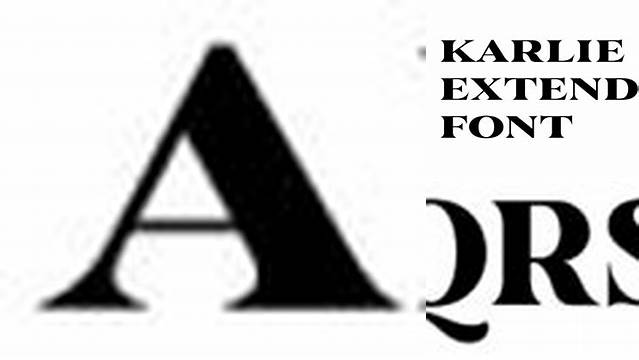
Introduction to Karlie Serif Semi Extended Font
Guys, let's dive into the world of typography! When it comes to making your designs pop, the font you choose plays a crucial role. Today, we're going to explore the Karlie Serif Semi Extended Font, a typeface that blends elegance with a touch of modernity. This font is perfect for those who want to add a sophisticated yet contemporary feel to their projects. Whether you're working on branding, editorial design, or even web layouts, Karlie Serif can be a fantastic choice. Its semi-extended structure gives it a unique presence, making it stand out from more traditional serif fonts. Think of it as the stylish cousin of classic serifs – refined but with its own personality. The subtle curves and balanced letterforms make it highly readable, ensuring your message comes across clearly and beautifully. So, if you're on the hunt for a font that’s both versatile and visually appealing, Karlie Serif might just be the answer. We’ll explore its characteristics, ideal use cases, and, most importantly, where you can snag it for free. Let's get started and see how this font can elevate your design game!
The Karlie Serif Semi Extended Font is characterized by its distinctive features that make it a versatile choice for various design projects. Its semi-extended letterforms provide a unique and modern aesthetic, setting it apart from traditional serif fonts. The font’s elegant curves and balanced letterforms ensure high readability, making it suitable for both body text and headlines. Karlie Serif exudes sophistication, making it an excellent option for projects aiming for a refined and contemporary feel. Its versatility allows it to be used in branding, editorial design, web layouts, and more. The font's unique structure adds character to any design, making it stand out while maintaining a professional appearance. Designers often choose Karlie Serif for its ability to convey both elegance and modernity, making it a go-to option for projects that require a touch of class and contemporary flair. Its balanced design ensures that it remains legible across various sizes and mediums, further enhancing its usability. Understanding these key characteristics helps in leveraging Karlie Serif effectively to achieve the desired design impact. Next, we will delve into the specific applications where Karlie Serif truly shines, providing practical examples and inspiration for your projects.
The aesthetic appeal of Karlie Serif lies in its ability to blend traditional serif characteristics with a modern, extended form. This fusion creates a visually striking typeface that is both elegant and contemporary. The extended letterforms give the font a unique presence, making it stand out without sacrificing readability. The subtle serifs add a touch of classic sophistication, while the overall structure feels fresh and modern. Karlie Serif’s design is carefully balanced, ensuring that each letterform complements the others, resulting in a harmonious and visually pleasing text. This balance makes it a versatile choice for various design applications, from branding to editorial layouts. The font’s aesthetic also includes a sense of openness and airiness, which contributes to its readability and visual appeal. Designers appreciate Karlie Serif for its ability to convey a sense of luxury and modernity, making it ideal for projects that require a sophisticated touch. The clean lines and refined curves make it a timeless choice, ensuring that it remains stylish and relevant for years to come. Karlie Serif’s aesthetic appeal is not just about its visual attributes; it’s also about the feeling it evokes – a sense of elegance, modernity, and trustworthiness. This makes it a powerful tool for communicating a brand’s message effectively and beautifully.
Ideal Use Cases for Karlie Serif
So, where does Karlie Serif really shine? Let's explore some ideal use cases, guys! This font is incredibly versatile, making it a fantastic choice for a wide range of projects. First up, branding. If you're looking to create a logo or brand identity that exudes sophistication and modernity, Karlie Serif can be your best friend. Its elegant letterforms and unique semi-extended structure give it a distinct personality that can help your brand stand out. Think of high-end fashion brands, luxury boutiques, or even tech companies aiming for a sleek, contemporary look – Karlie Serif fits right in. Next, let's talk about editorial design. Magazines, books, and online articles can all benefit from the readability and visual appeal of this font. Whether you're crafting headlines, subheadings, or body text, Karlie Serif ensures a smooth reading experience. Its balanced design and clear letterforms make it easy on the eyes, even for long-form content. Plus, its elegant aesthetic adds a touch of class to any publication. Moving on to web design, Karlie Serif can elevate your website's typography game. Using it for headings and key text elements can create a strong visual hierarchy and guide your visitors through your content. Just remember to pair it with a suitable sans-serif font for body text to ensure optimal readability. Beyond these, Karlie Serif is also great for invitations, posters, and packaging design. Its versatility allows it to adapt to various styles and themes, making it a valuable addition to any designer's toolkit. In essence, if you need a font that combines elegance, modernity, and readability, Karlie Serif is a top contender. Now, let’s dive deeper into specific examples and how to make the most of this fantastic typeface.
When it comes to branding, Karlie Serif excels in creating a sophisticated and memorable identity. Its elegant letterforms and unique semi-extended structure make it ideal for businesses aiming to convey a sense of luxury, modernity, and trustworthiness. Imagine a high-end fashion brand using Karlie Serif for its logo and marketing materials – the font’s refined aesthetic immediately communicates quality and style. Similarly, a luxury boutique could leverage Karlie Serif to create an inviting and upscale atmosphere, both online and in-store. Even tech companies looking to project a sleek, contemporary image can benefit from this font’s clean lines and balanced design. Karlie Serif's versatility allows it to be used across various branding elements, from business cards and letterheads to websites and social media graphics. Its distinct personality helps brands stand out in a crowded market, ensuring that their message is not only seen but also remembered. By choosing Karlie Serif, businesses can create a cohesive and impactful brand identity that resonates with their target audience. The font’s ability to blend elegance with modernity makes it a timeless choice for brands that want to make a lasting impression.
In the realm of editorial design, Karlie Serif shines as a versatile and highly readable typeface. Magazines, books, and online articles all benefit from its elegant letterforms and balanced design. For headlines and subheadings, Karlie Serif commands attention without sacrificing clarity, ensuring that key messages are easily noticed. In body text, its clear and distinct letterforms make for a smooth reading experience, even in long-form content. The font's aesthetic appeal adds a touch of sophistication to any publication, enhancing the overall visual presentation. Imagine a fashion magazine using Karlie Serif for its feature articles – the font's elegance complements the high-end content, creating a cohesive and engaging reading experience. Similarly, a literary journal could use Karlie Serif to evoke a sense of classic sophistication, while maintaining a contemporary feel. Online publications can also benefit from Karlie Serif's readability, ensuring that readers stay engaged with the content. By choosing Karlie Serif for editorial projects, designers can create layouts that are both visually appealing and highly functional, making it a valuable asset in the world of publishing.
For web design, Karlie Serif offers a unique blend of elegance and modernity that can elevate the visual appeal of any website. Its use in headings and key text elements creates a strong visual hierarchy, guiding visitors through the content effectively. The font’s distinct personality can help a website stand out, making a memorable impression on users. However, it’s crucial to pair Karlie Serif with a suitable sans-serif font for body text to ensure optimal readability. A classic pairing might be Karlie Serif for headings and a clean, modern sans-serif like Open Sans or Lato for the main content. This combination provides a balanced and professional look, making the website both visually appealing and easy to navigate. Imagine a lifestyle blog using Karlie Serif for its headings – the font's elegance adds a touch of sophistication, while the sans-serif body text ensures a comfortable reading experience. Similarly, a corporate website could use Karlie Serif to project a sense of trustworthiness and modernity. By carefully integrating Karlie Serif into web design, designers can create engaging and effective online experiences.
So, guys, we've reached the end of our deep dive into the Karlie Serif Semi Extended Font! We've explored what makes this font special, where it shines in various design projects, and how to snag it for free. More importantly, we've discussed how to use it effectively to elevate your designs. Karlie Serif is a fantastic typeface that blends elegance with modernity, making it a versatile choice for a wide range of applications. Whether you're working on branding, editorial design, or web layouts, this font can add a touch of sophistication and class to your work. Remember, though, that having a great font is just the beginning. To truly make it shine, you need to consider the context, pair it wisely with other fonts, create a clear visual hierarchy, avoid overuse, and pay attention to the details of spacing and kerning. By mastering these tips, you can harness the full potential of Karlie Serif and create stunning designs that stand out. And with the resources we've shared, finding a free download of Karlie Serif should be a breeze. So, go ahead and experiment, guys! Play around with different designs and see how this elegant typeface can transform your projects. Happy designing, and may your typography always be on point!